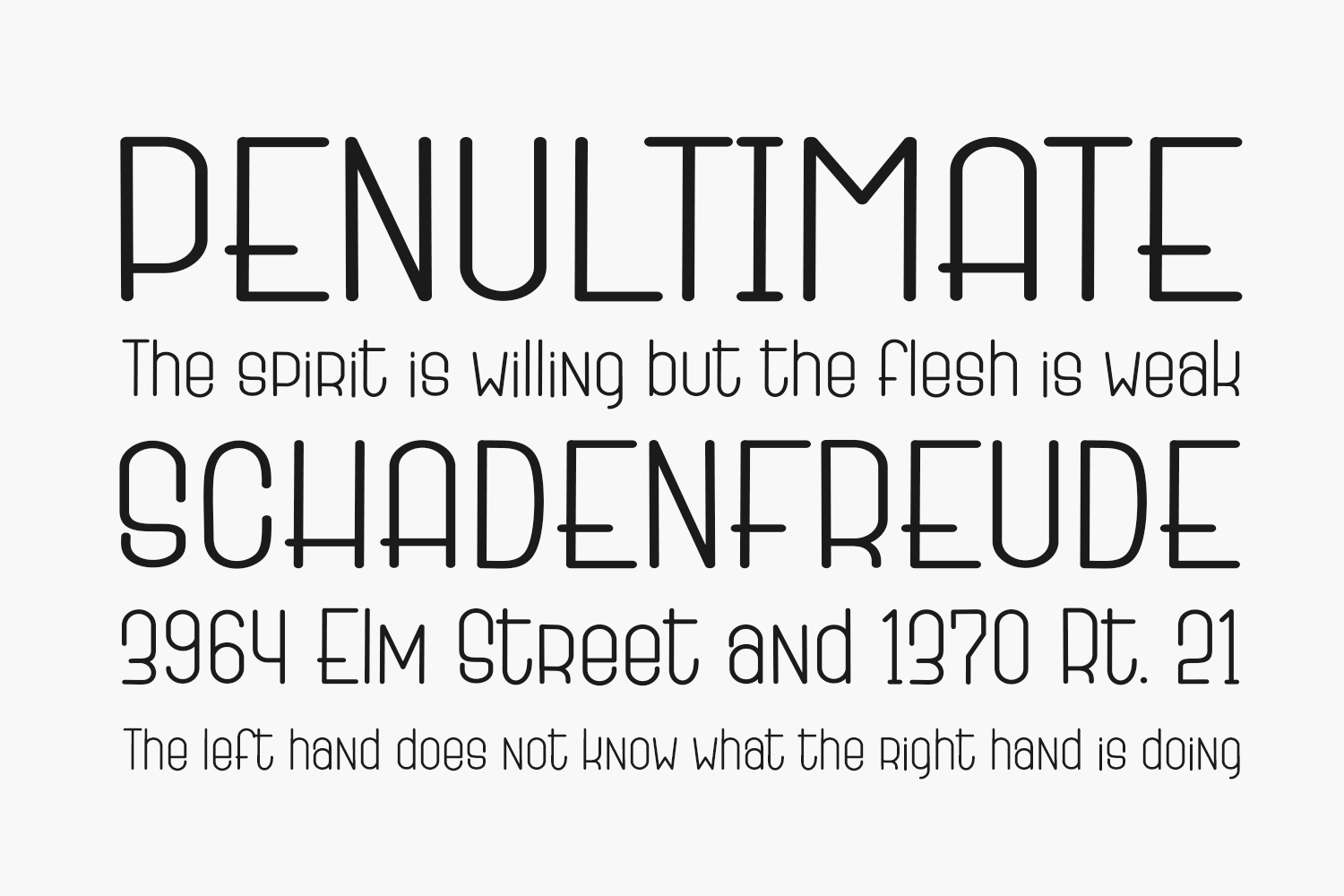
Home Away Free Font is a minimal and clean sans serif font. It can easily be matched to an incredibly large set of projects, so add it to your creative ideas and notice how it makes them stand out. Home Away Free Font was designed by Eknoji Studio and is free for personal use only. Please purchase the full version for commercial use.